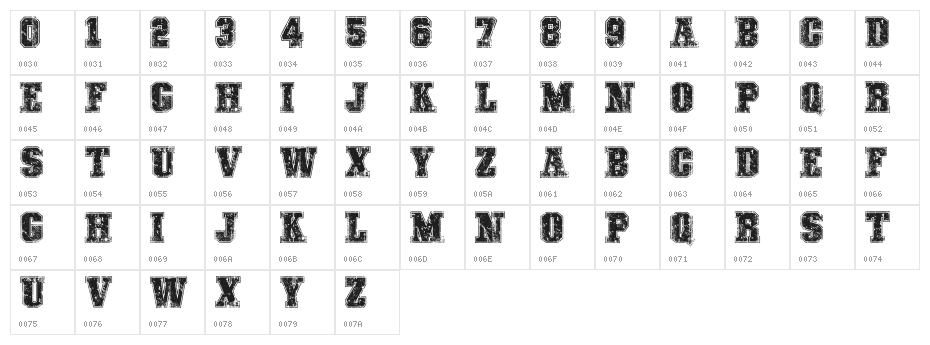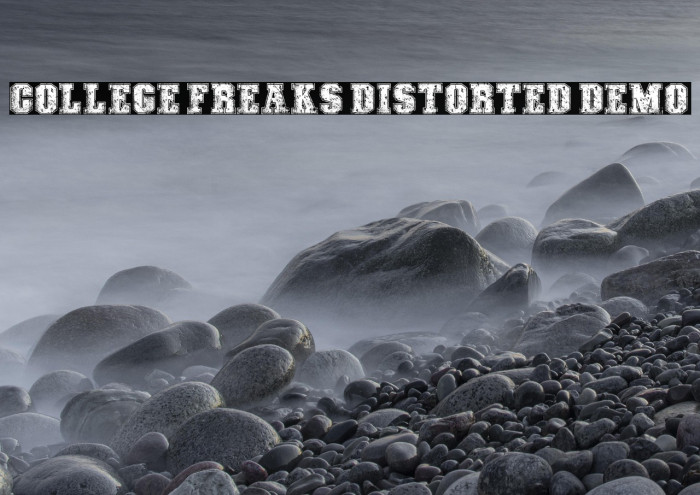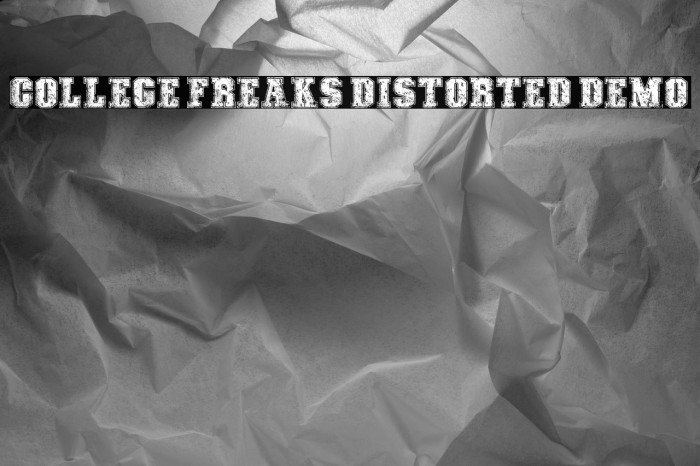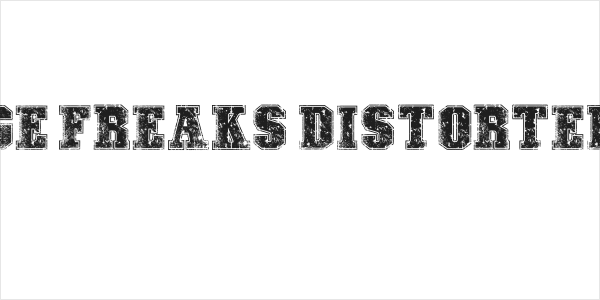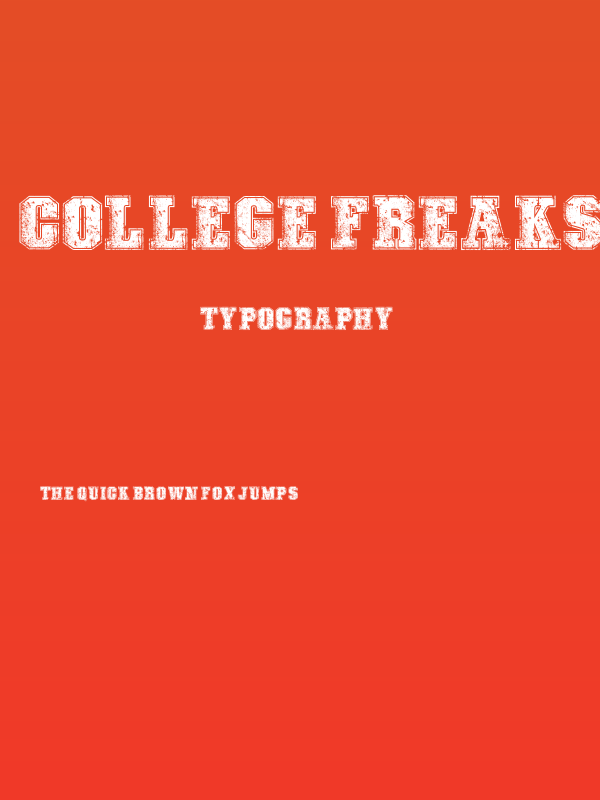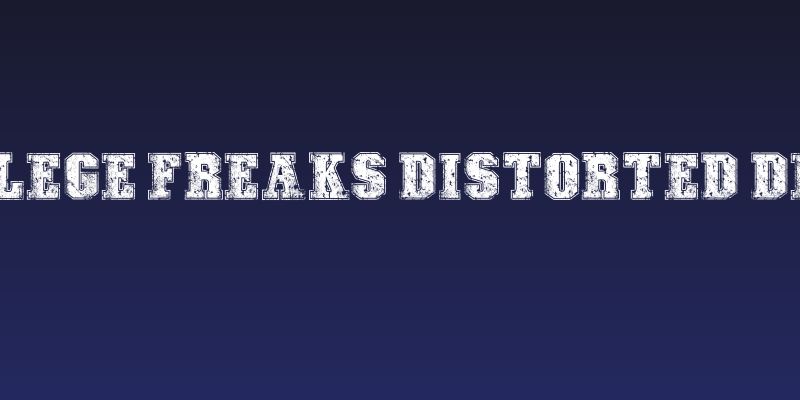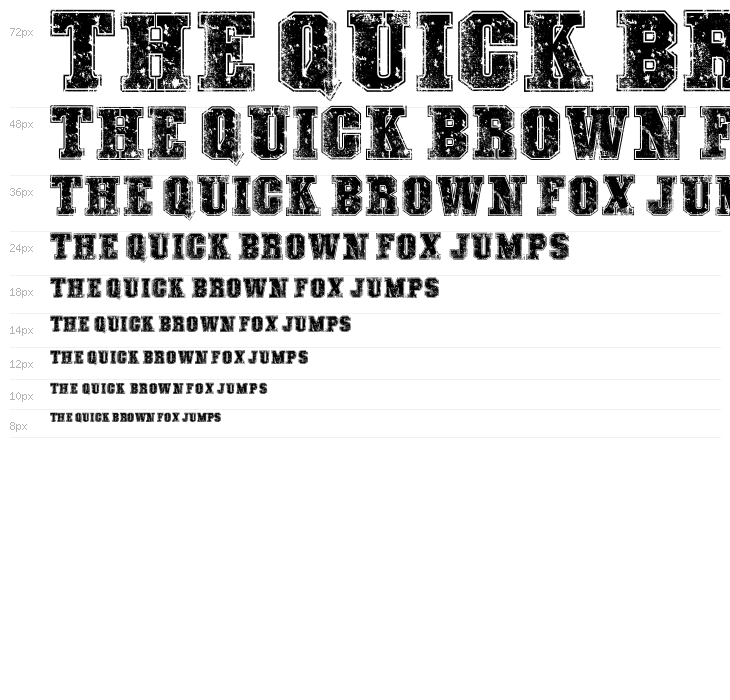
COLLEGE FREAKS DISTORTED DEMO Font
COLLEGE FREAKS DISTORTED DEMO Description
This font features a bold, distressed style with a vintage, collegiate feel. The characters are blocky and robust, with a weathered texture that gives them a worn, rugged appearance. The uppercase letters are prominent and commanding, making them ideal for impactful headlines or titles. The numbers follow the same aesthetic, ensuring consistency across different types of content. The distressed detailing adds character and depth, making it suitable for designs that require a retro or grunge look. This font is perfect for projects that aim to evoke a sense of nostalgia or ruggedness, such as sports team branding, posters, or apparel designs.
| Proposed Projects | Ideal for sports team branding, vintage posters, apparel designs, and any project requiring a rugged, nostalgic feel. |